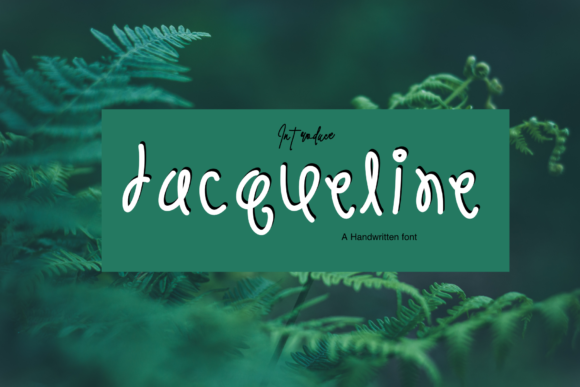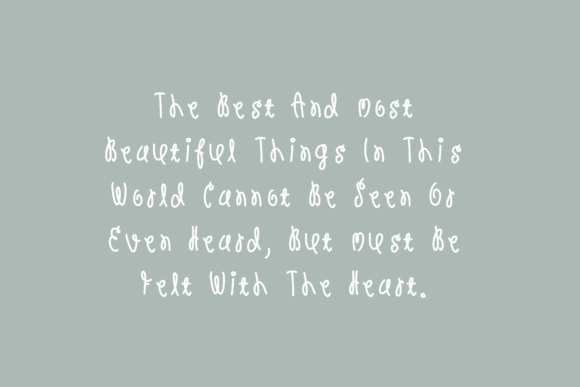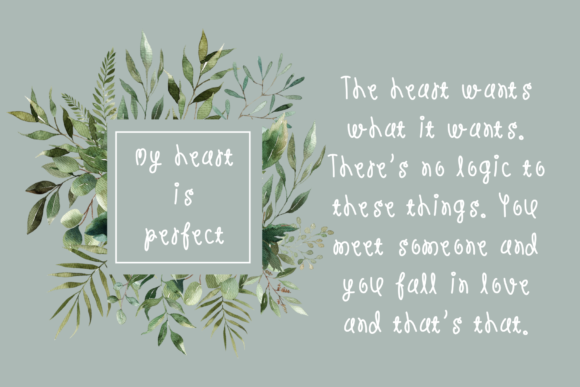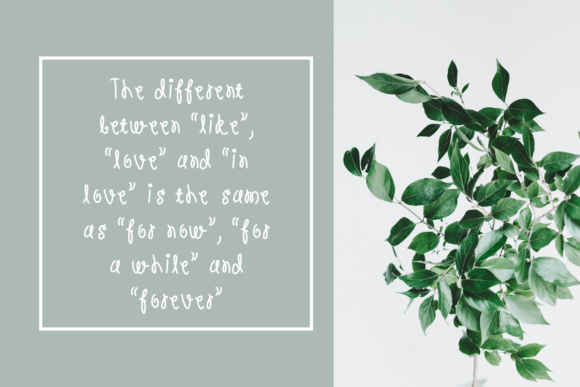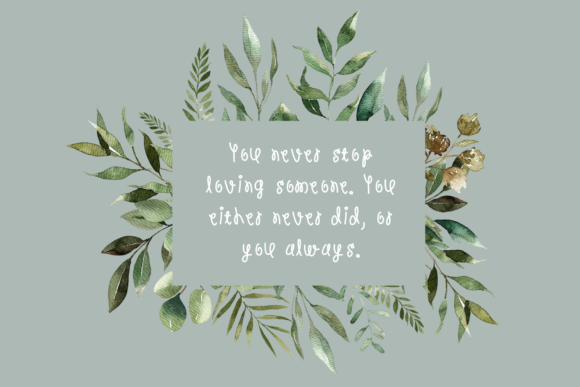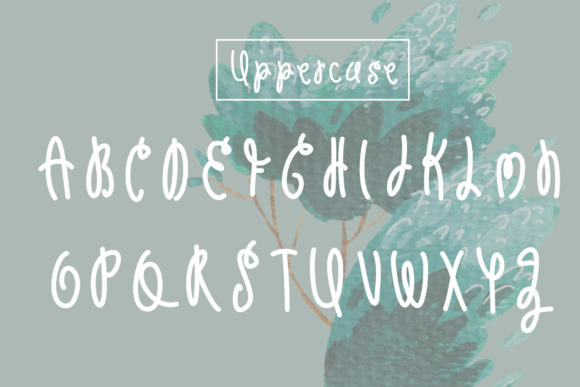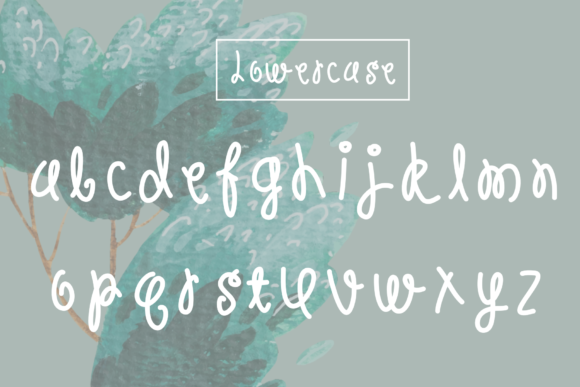
Jacqueline Font
About Jacqueline Font
Jacqueline is a sweet and friendly handwritten font. Its natural and unique style makes it incredibly fitting to a large pool of designs. The only limit is your imagination!